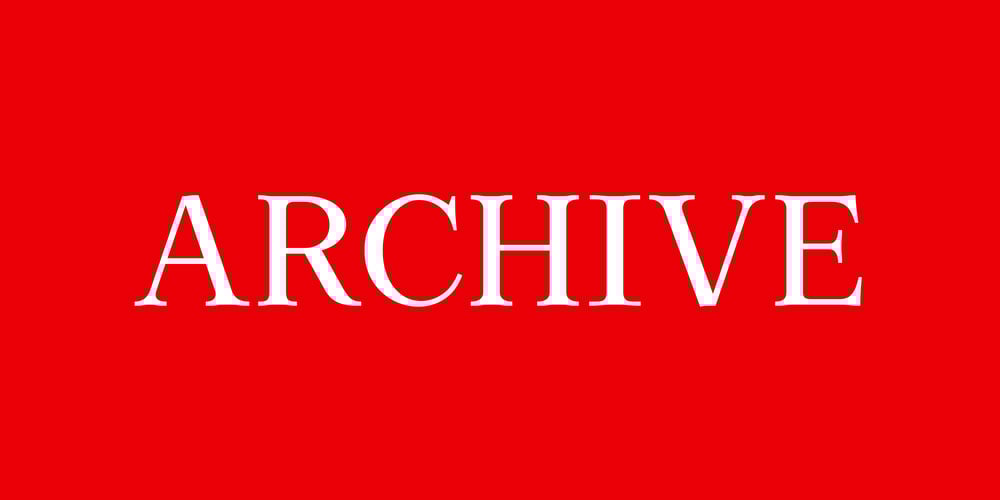
Archive Font Family was designed by Colophon Foundry and published by Colophon Foundry. Archive contains 9 styles and family package options. Developed and refined through various projects and design commissions by Colophon Foundry, Archive was initially conceived as a workhorse Serif typeface for a publication for Brighton-based photographic publisher Photoworks — The Myth of the Airborne Warrior by Stuart Griffiths, edited by Gordon MacDonald, documenting the troubles in Northern Ireland during the 1980s. Collected ephemera by the artist used lo-fi reproduction techniques such as photocopying and primitive variants of Offset printing which led to distortion of the typography. Observing this, Colophon Foundry set out to draw a Serif that encapsulated the qualities of these production methods. Small indents on both the top and bottom of each serif, aligning parallel to the baseline and cap height, gave each letterform an independent ‘pre-existing’ and, when applied through complete alphabet, rhythmic quality.Archive is available in four weights — Roman, Roman Italic, Semibold, Semibold Italic, Bold, Bold Italic, Extra Bold, Extra Bold Italic and with corresponding Italics. It also boasts a Monospaced variant in a Roman weight. Archive is open to licensing in both Standard (‘STD’) and Professional (‘PRO’) variants. The latter contains a full set of small capitals, discretionary ligatures and additional typographic alternates, as well as further language support for Cyrillic and Greek.